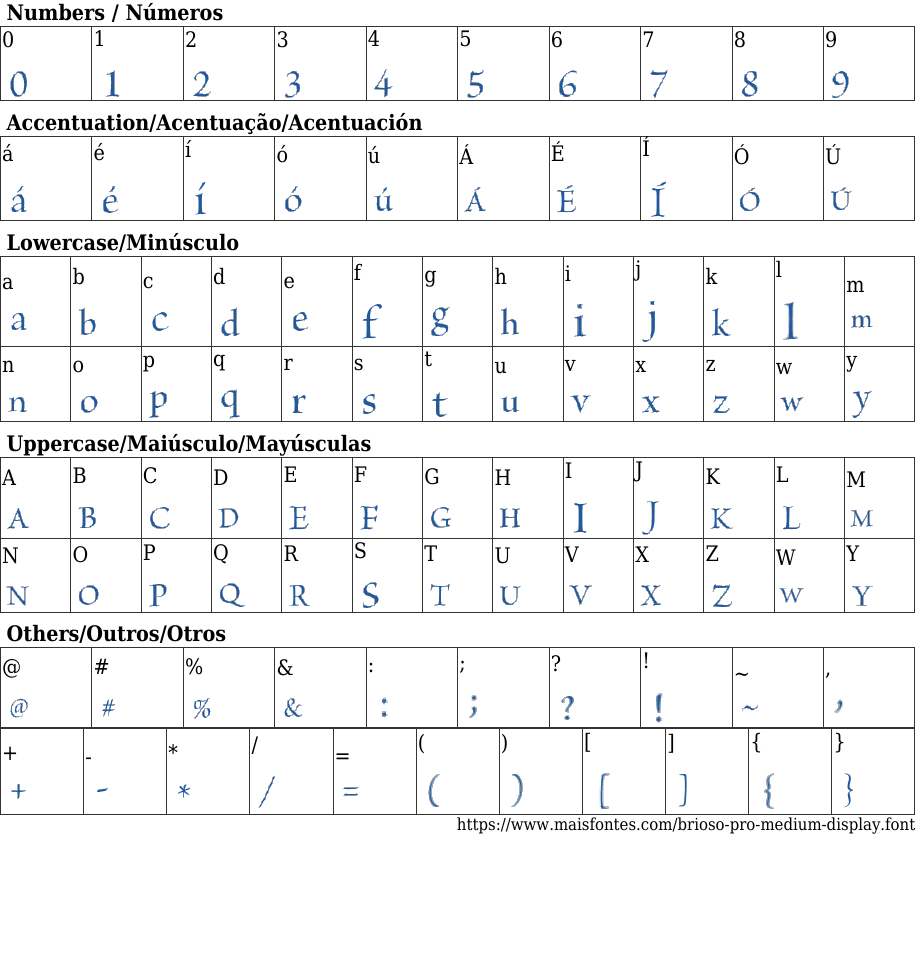
The elegance of a good font can make a great visual impact to the end user. Web explore brioso designed by robert slimbach at adobe fonts. Web download brioso pro fonts.
Brioso pro regular by adobe systems incorporated. Web download brioso pro display for free. Brioso pro regular by adobe systems incorporated. A serif typeface with 42 styles, available from adobe fonts for sync and web.
Brioso Font Ttf Download - Brioso pro regular by adobe systems incorporated. Web download brioso pro fonts. Web download brioso pro regular font. Web explore brioso designed by robert slimbach at adobe fonts. A serif typeface with 42 styles, available from adobe fonts for sync and web.
Brioso Font Ttf Download - Web download brioso pro fonts. Web download brioso pro display for free. Web explore brioso designed by robert slimbach at adobe fonts. Fonts are in ttf, otf format and with direct download. A serif typeface with 42 styles, available from adobe fonts for sync and web.
Brioso Font Ttf Download - This fonts are authors' property, and are either shareware, demo versions or public domain. Web download brioso pro regular font. Download the brioso pro regular font for mac or windows in opentype, truetype or. Brioso pro regular by adobe systems incorporated. Web download brioso pro fonts.
Brioso Font Ttf Download - Web download brioso pro fonts. Web download brioso pro regular font. Download the brioso pro regular font for mac or windows in opentype, truetype or. The elegance of a good font can make a great visual impact to the end user. Web free for personal use.
Brioso Font Ttf Download - Fonts are in ttf, otf format and with direct download. Web download brioso pro display for free. Web download brioso pro regular font. Web download brioso pro fonts. Web explore brioso designed by robert slimbach at adobe fonts.
Brioso Font Ttf Download - Web download brioso pro fonts. Web free for personal use. A serif typeface with 42 styles, available from adobe fonts for sync and web. Web explore brioso designed by robert slimbach at adobe fonts. This fonts are authors' property, and are either shareware, demo versions or public domain.